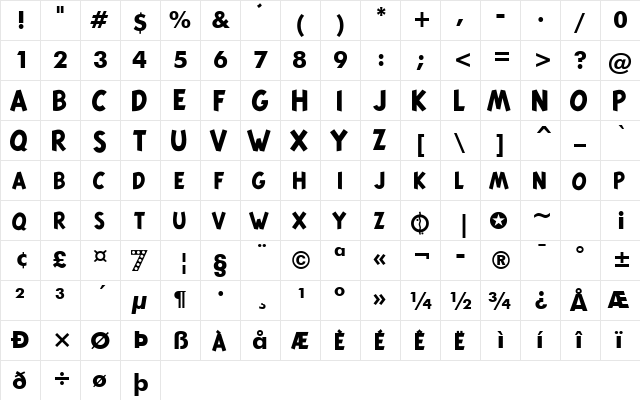
Tintin Bold
Design Context for Tintin Typeface
Tintin is a composed and adaptable typeface that performs quietly and consistently across a wide range of design contexts. Its bold stroke weight gives it real presence on the page.